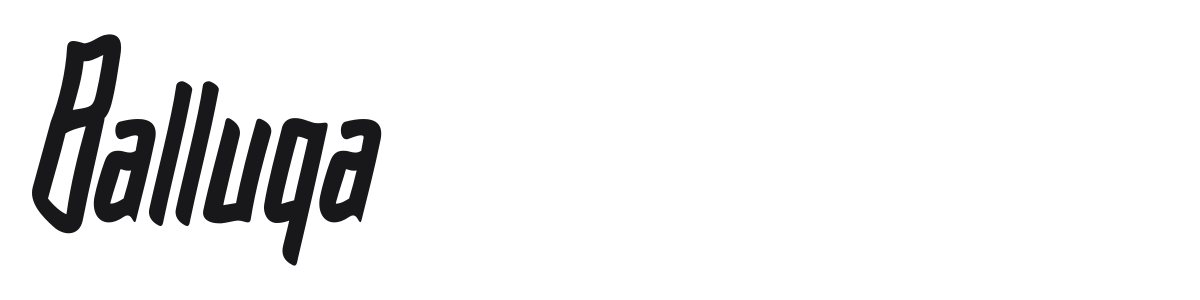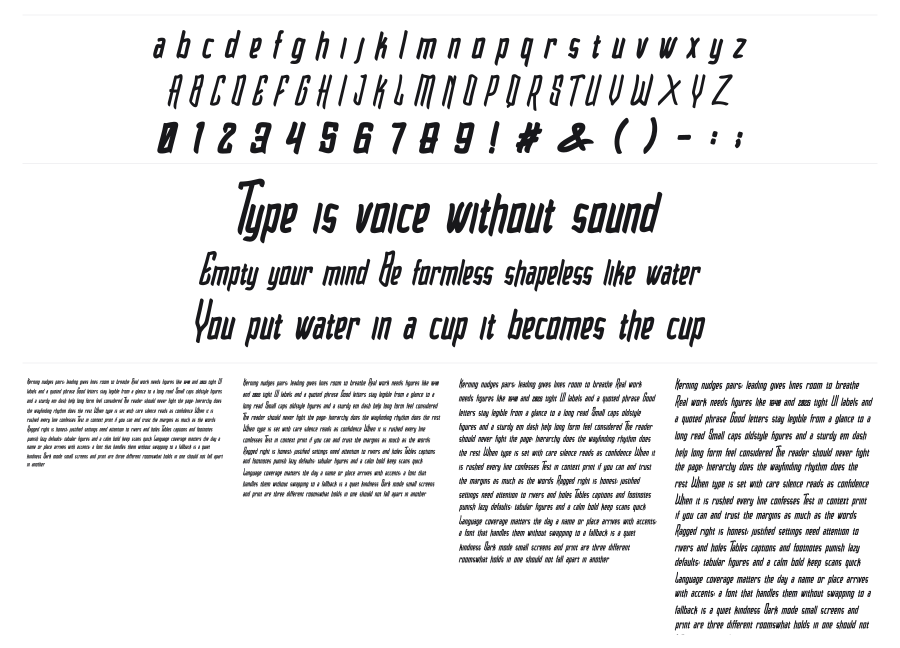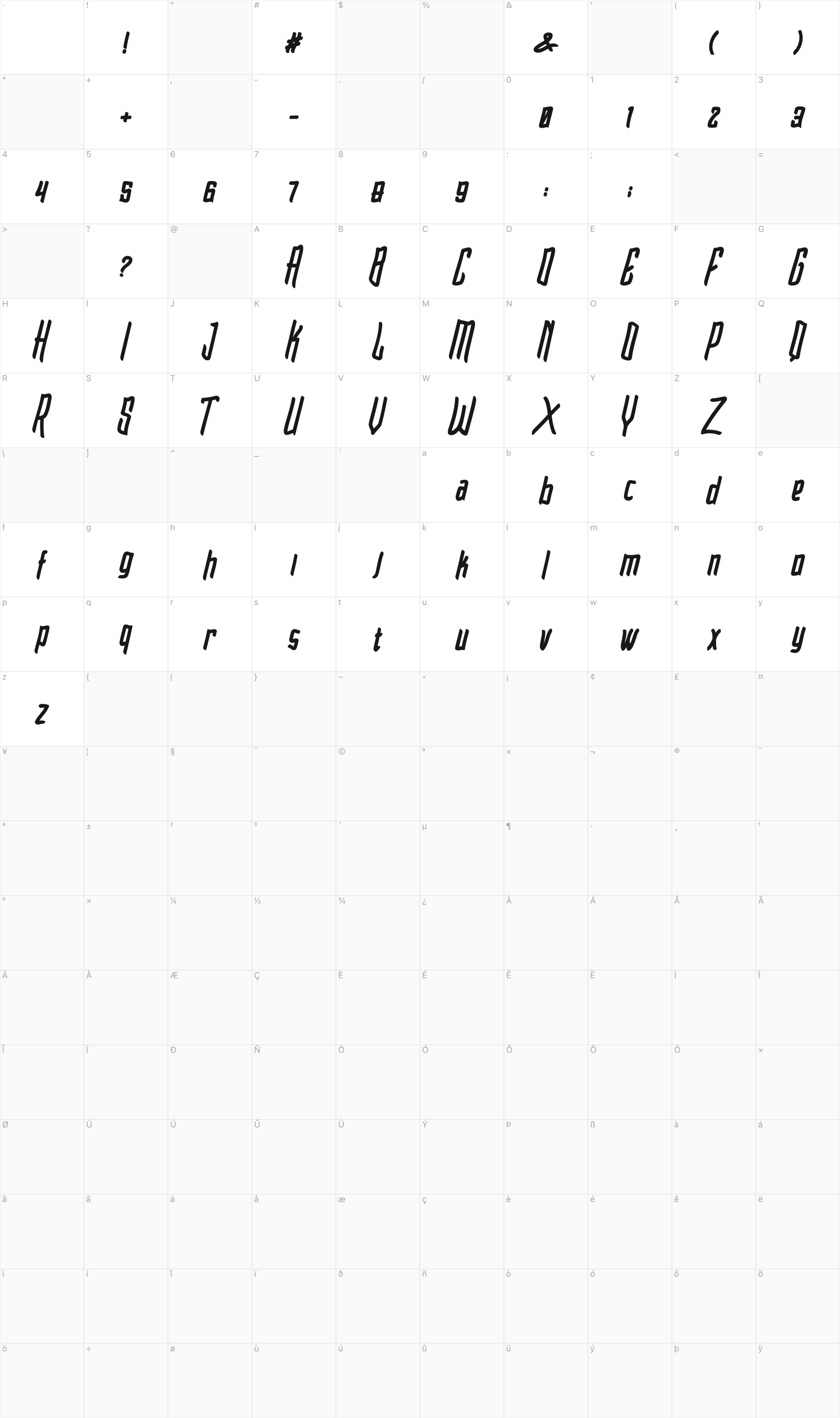
Balluqa
Balluqa is a heavy condensed italic sans with a bold retro personality rooted in 1970s sports and pop typography. The forward-leaning angle and rounded terminals give it a punchy, kinetic quality that works well at large sizes. It carries the nostalgic energy of vintage athletic branding without feeling like a direct revival.